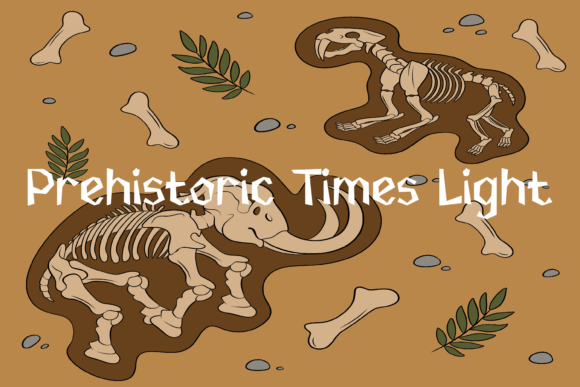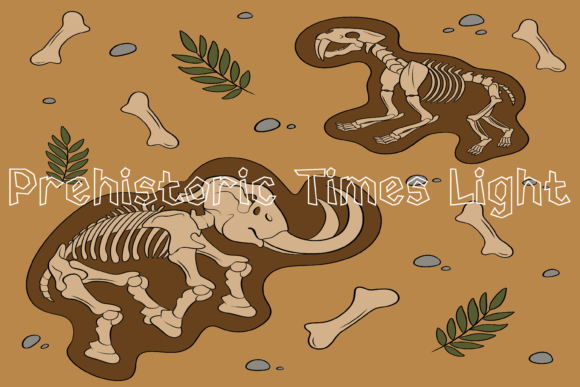
Introduction to Prehistoric Times Font
Prehistoric Times is a fun and unique display font.
Its interesting and playful look makes it suitable for a large variety of design ideas .